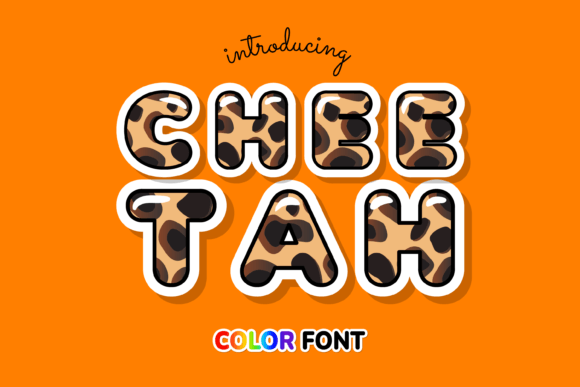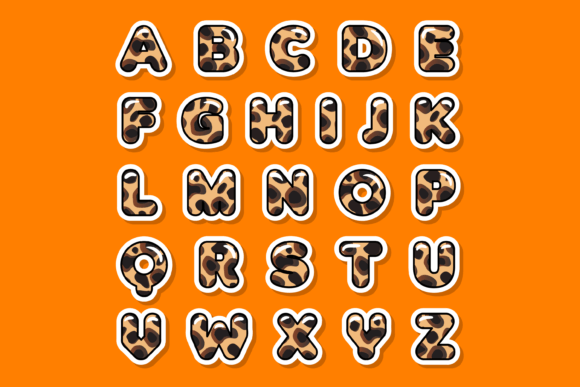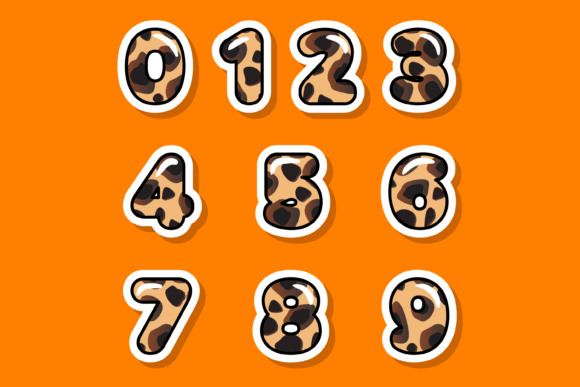
Introducing Cheetah, an incredibly cool color font designed in the style of an animal. This font captures the essence of the cheetah’s speed and grace, bringing a touch of wildness and energy to your designs. Whether you’re working on custom designs, DIY crafts, or any other creative project, Cheetah is the perfect choice to add a unique and captivating touch.
Cheetah stands out with its bold and dynamic letterforms, reflecting the distinctive patterns and sleekness of the cheetah. Each letter is meticulously designed to showcase the agility and power associated with this magnificent animal. With its vibrant colors and intricate details, Cheetah will instantly grab attention and make your designs stand out from the crowd.
The versatility of Cheetah allows it to be used in a wide range of applications. Whether you’re creating posters, logos, apparel designs, social media graphics, or any other visual content, Cheetah brings a sense of excitement and adventure to your projects. Its playful yet sophisticated style will appeal to audiences of all ages.
Unleash your creativity and let Cheetah take your designs to new heights. Whether you’re aiming for a bold and edgy look or a whimsical and playful vibe, this font has the versatility to adapt to your vision. Embrace the spirit of the cheetah and watch as Cheetah brings a sense of adventure and style to your creative projects.
Choose Cheetah for its unique and captivating design, and let it add a touch of wildness and energy to your designs. With its cool and fierce nature, this color font is ready to make a statement and leave a lasting impression. Enjoy the journey of creating with Cheetah and see how it transforms your designs into something truly remarkable!